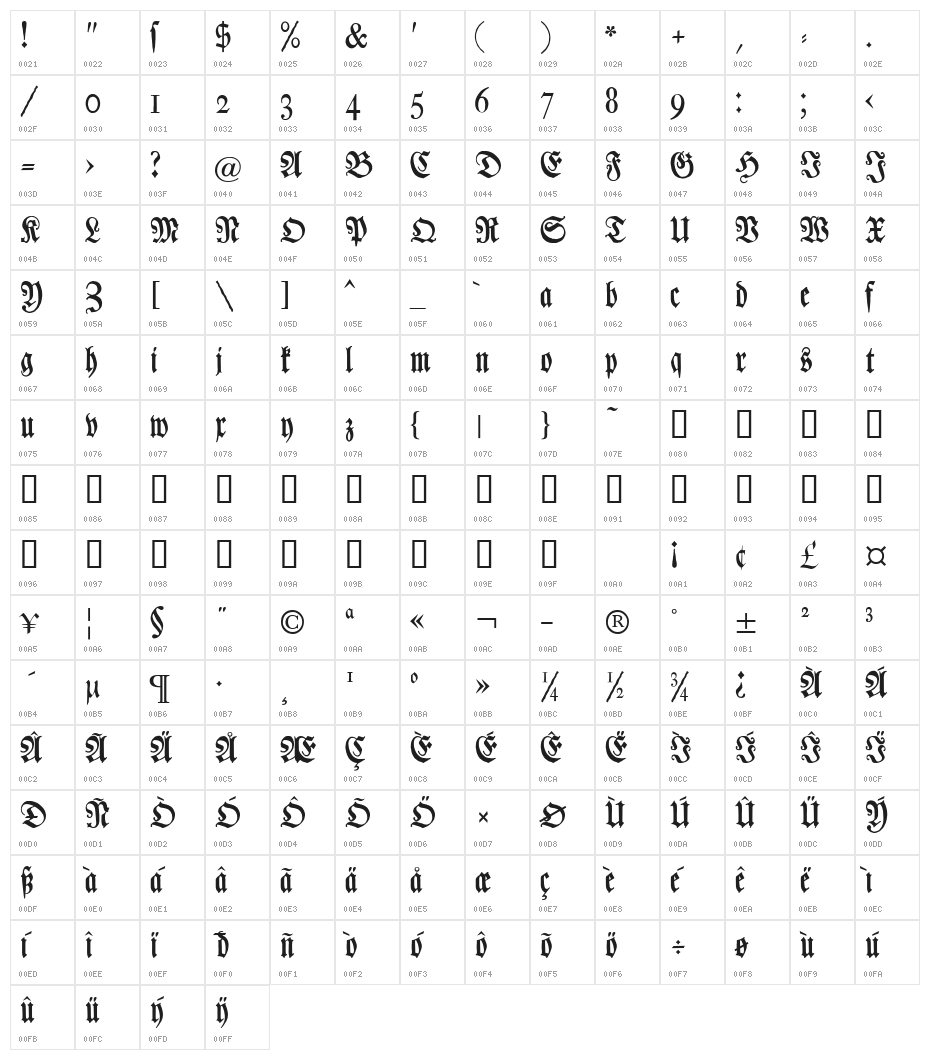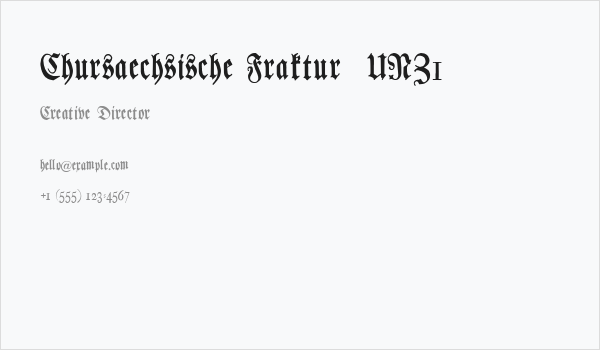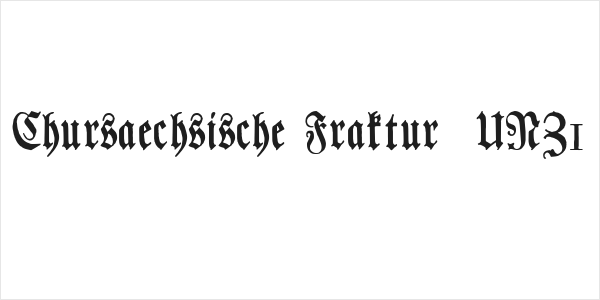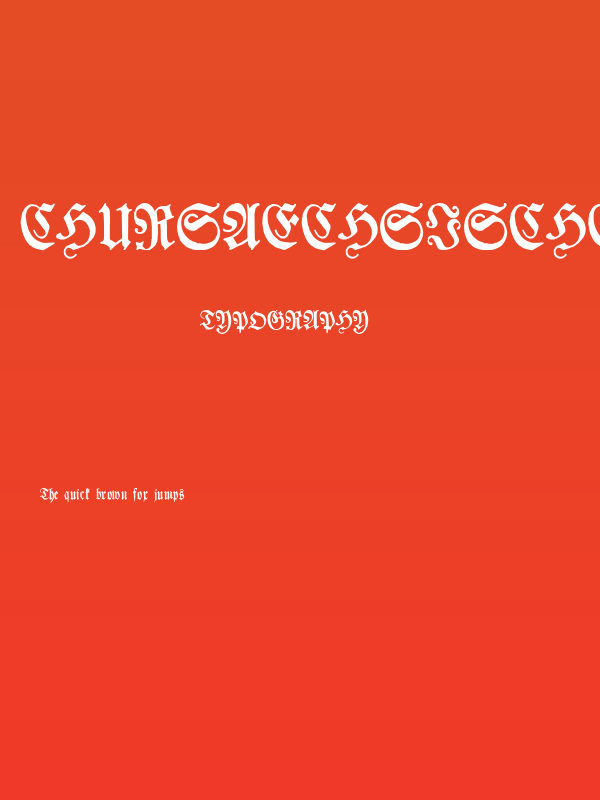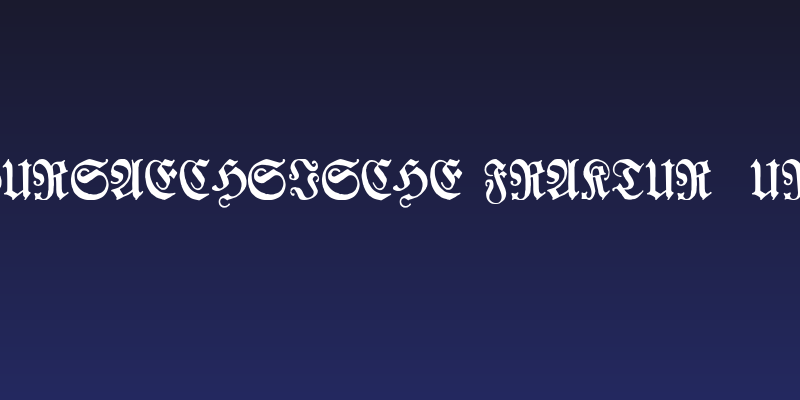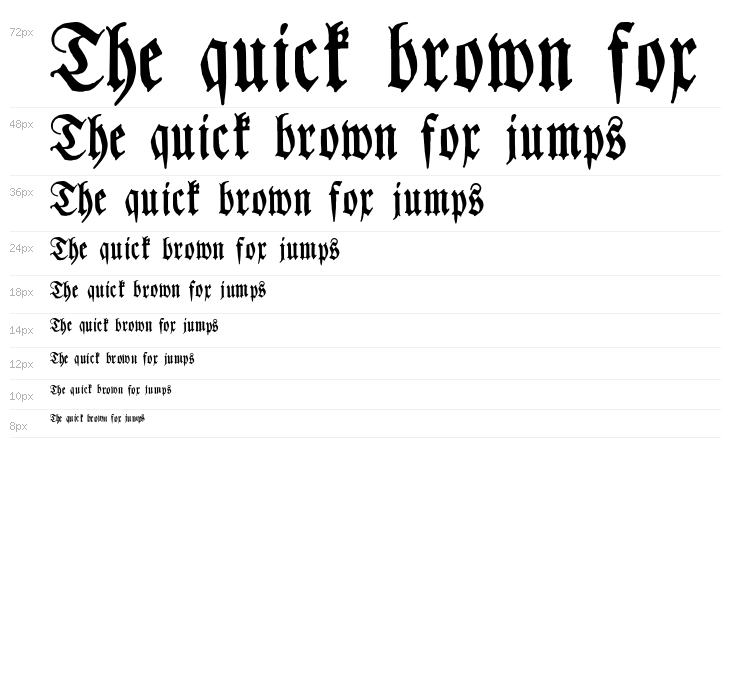
Chursaechsische Fraktur UNZ1 Font
Chursaechsische Fraktur UNZ1 Description
This font embodies the traditional and intricate style of blackletter typography, characterized by its ornate and angular letterforms. The uppercase letters are highly decorative, with elaborate flourishes and sharp edges that convey a sense of historical elegance. The lowercase letters maintain a consistent style, with a slightly more subdued ornamentation, yet still retaining the distinctive blackletter aesthetic. The numerals are bold and maintain the same angularity, ensuring uniformity across the character set. Special characters are designed with the same attention to detail, making them seamlessly integrate with the rest of the font. This font is ideal for projects that require a touch of medieval or gothic flair, such as historical documents, themed event invitations, or branding for products that emphasize tradition and craftsmanship.